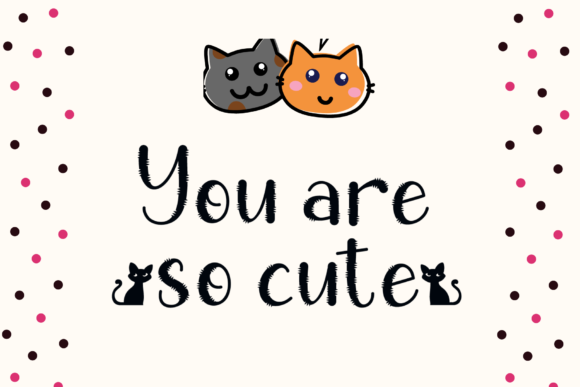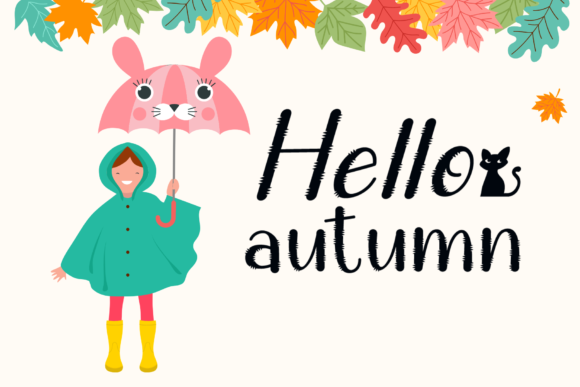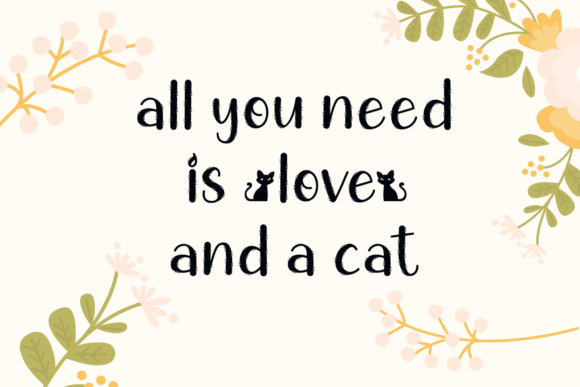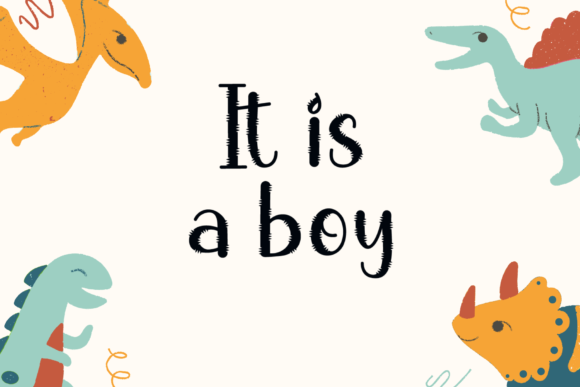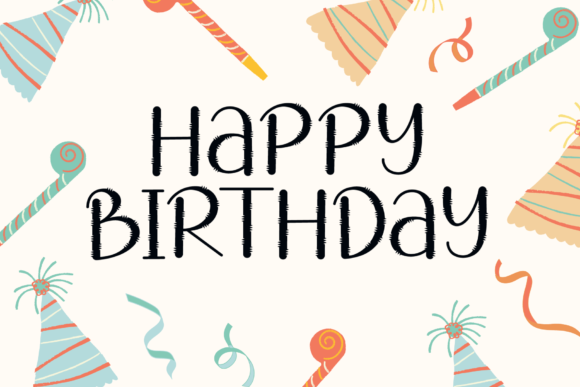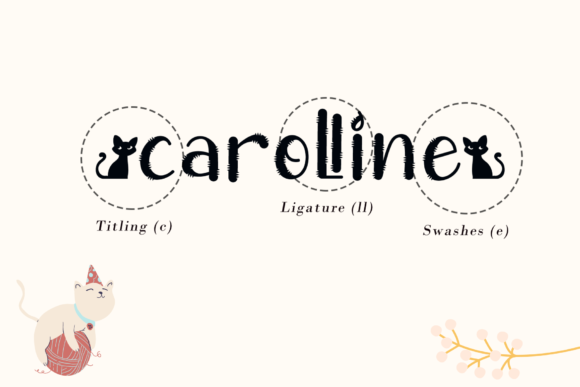
Introducing Chic Cat Font: The Purrfect Addition to Your Design Library
Are you tired of using the same old fonts in your designs? Do you want to add a touch of personality and whimsy to your creations? Look no further than Chic Cat Font, a cool and uniquely designed decorative font that’s sure to elevate any project. In this article, we’ll take a closer look at what makes Chic Cat Font so special and why it’s a must-have for designers and crafters.
What is Chic Cat Font?
Chic Cat Font is a decorative font that’s designed to add a touch of elegance and playfulness to your designs. With its sleek and modern lines, this font is perfect for creating eye-catching headlines, titles, and captions that will make your work stand out from the crowd. Whether you’re designing a logo, brochure, or social media graphic, Chic Cat Font is the perfect choice.
Unique Features of Chic Cat Font
So, what sets Chic Cat Font apart from other fonts? Here are just a few of its unique features:
- Hand-drawn design: Chic Cat Font is a hand-drawn font, which gives it a unique and personal touch. Each letter is carefully crafted to ensure that it looks perfect in any design.
- Modern and elegant: This font has a sleek and modern design that’s perfect for creating sophisticated and elegant designs.
- Highly versatile: Chic Cat Font can be used for a wide range of design projects, from logos and brochures to social media graphics and more.
- Easy to read: Despite its decorative nature, Chic Cat Font is easy to read, making it perfect for use in body text as well as headlines.
Why You Need Chic Cat Font in Your Design Library
So, why should you add Chic Cat Font to your design library? Here are just a few reasons:
- Adds personality to your designs: Chic Cat Font is a unique and eye-catching font that’s sure to add personality to your designs.
- Elevates your brand: With its modern and elegant design, Chic Cat Font can help elevate your brand and make it look more sophisticated.
- Saves time: Having a wide range of fonts at your disposal can save you time and effort when working on design projects. With Chic Cat Font, you can create stunning designs in no time.
- Perfect for crafters and designers: Whether you’re a professional designer or a crafter, Chic Cat Font is the perfect addition to your design library.
How to Use Chic Cat Font
Using Chic Cat Font is easy. Here are a few tips to get you started:
- Pair it with other fonts: Chic Cat Font looks great when paired with other fonts. Try pairing it with a sans-serif font for a modern look or a script font for a more elegant look.
- Use it for headlines: Chic Cat Font is perfect for use in headlines and titles. Its decorative nature makes it stand out and grab attention.
- Experiment with colors: Chic Cat Font looks great in a variety of colors. Experiment with different colors to find the one that works best for your design.
| Font Name | Chic Cat Font |
| Author | AEN Creative Studio |
In conclusion, Chic Cat Font is a cool and uniquely designed decorative font that’s sure to elevate any design project. With its modern and elegant design, highly versatile nature, and ease of use, it’s a must-have for designers and crafters. Whether you’re looking to add personality to your designs, elevate your brand, or simply save time, Chic Cat Font is the perfect choice. So why wait? Add Chic Cat Font to your design library today and start creating stunning designs that will leave a lasting impression.